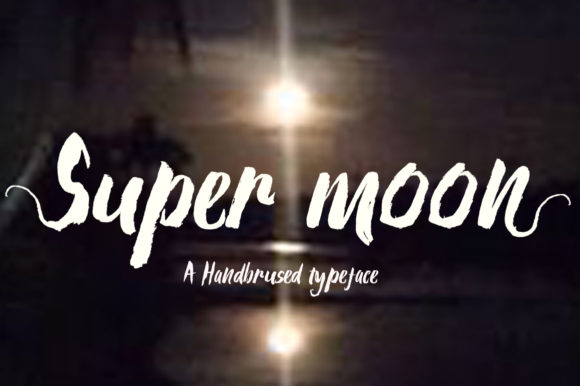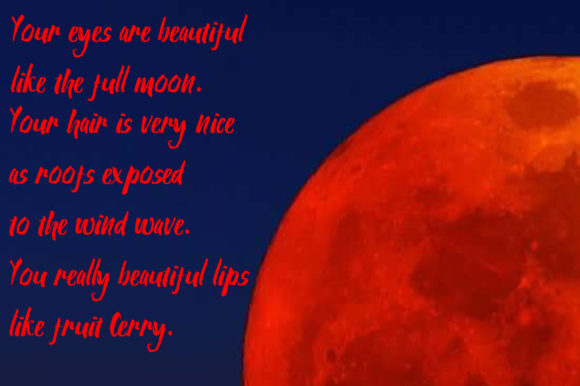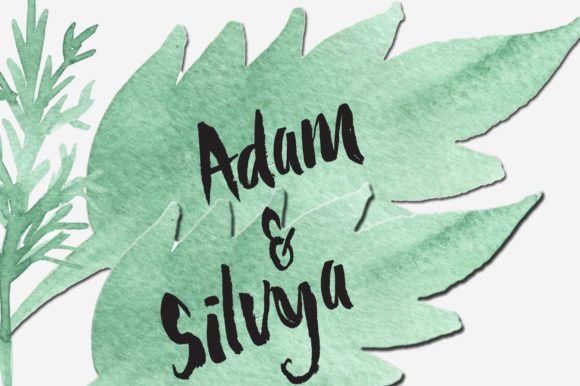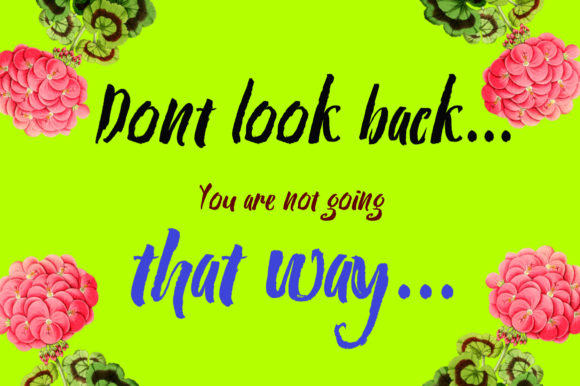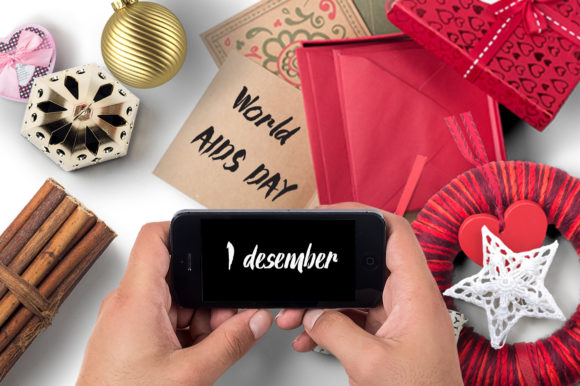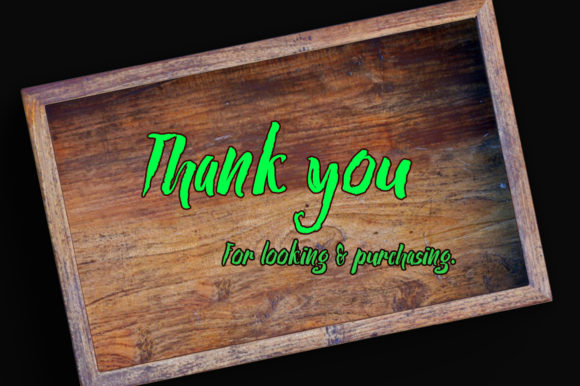
HomeScript FontsSuper Moon Font Script Fonts Super Moon Font FacebookXPinterestWhatsApp Super Moon Font Poster 2 Super Moon Font Poster 3 Super Moon Font Poster 4 Super Moon Font Poster 5 Super Moon Font Poster 6 About Super Moon Font Super Moon is a bold and fun typeface with an authentic feel. Get inspired by its contemporary charm! DOWNLOAD NOW People also explored Leopard Font Genotesia Font Legendday Font Juliet Alisha Cintia Font Marble Pattern Font Everlash Font Magenta Duo Font Northen Font 269 0 TagsSuper Moon Font Previous articleGeoffrey FontNext articleSeaweed Font LEAVE A REPLY Cancel reply Comment: Please enter your comment! Name:* Please enter your name here Email:* You have entered an incorrect email address! Please enter your email address here Website: Save my name, email, and website in this browser for the next time I comment. Personal Use Free Bolt Electric Personal Use Free Read more about this font Septhine Personal Use Free Read more about this font Shelly Personal Use Free Read more about this font Stronger Personal Use Free Read more about this font BLOG Where to Buy American Fonts Online in 2024 Where to Buy American Fonts Online: The Ultimate Guide for 2024 Looking for the perfect American font to elevate your design projects? You're in the... Exploring Font Trends Top 7 Google Fonts Alternatives for Faster and Privacy-Friendly Web Design (2025) Free Fonts Risk: Why Free Fonts Can Be Dangerous for Designers